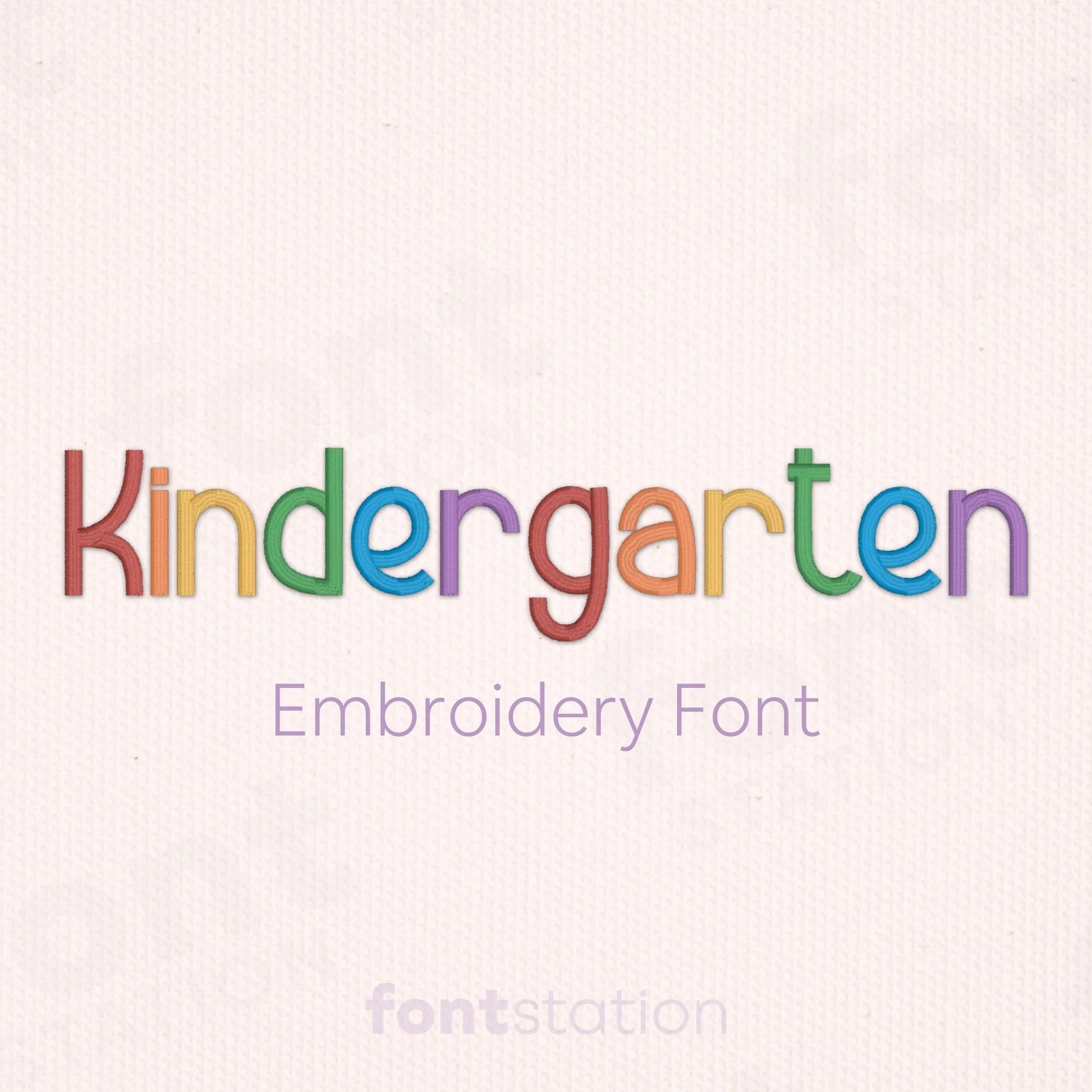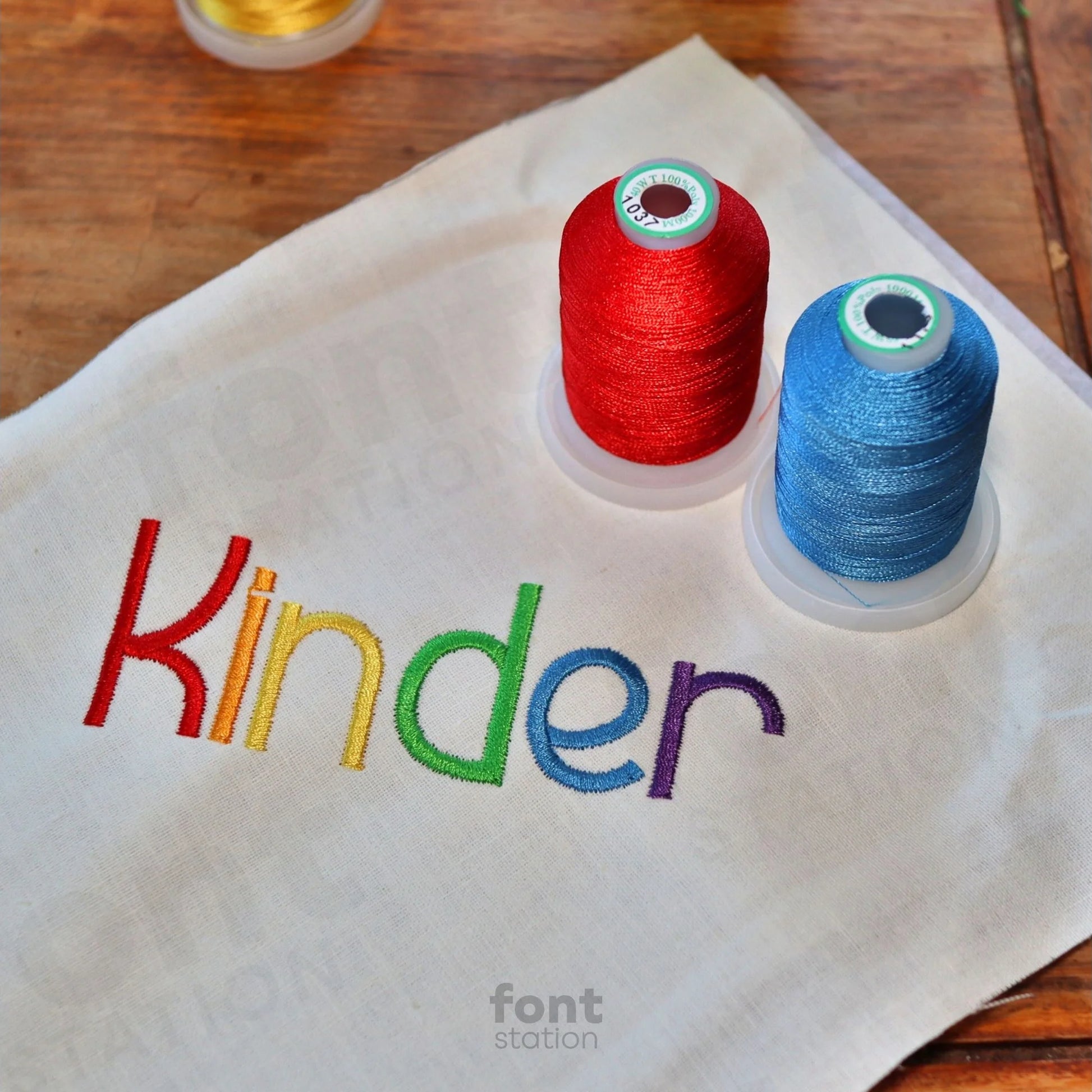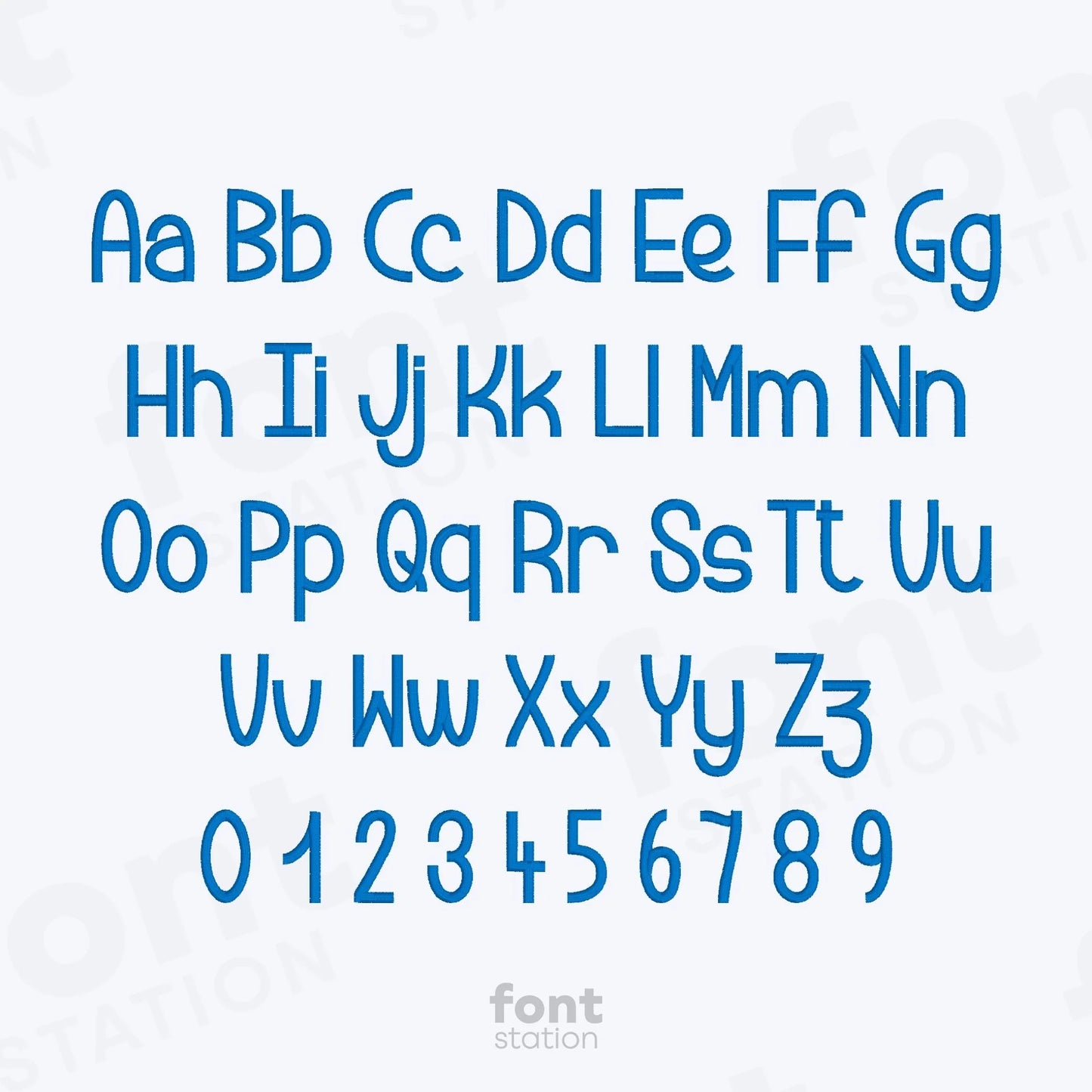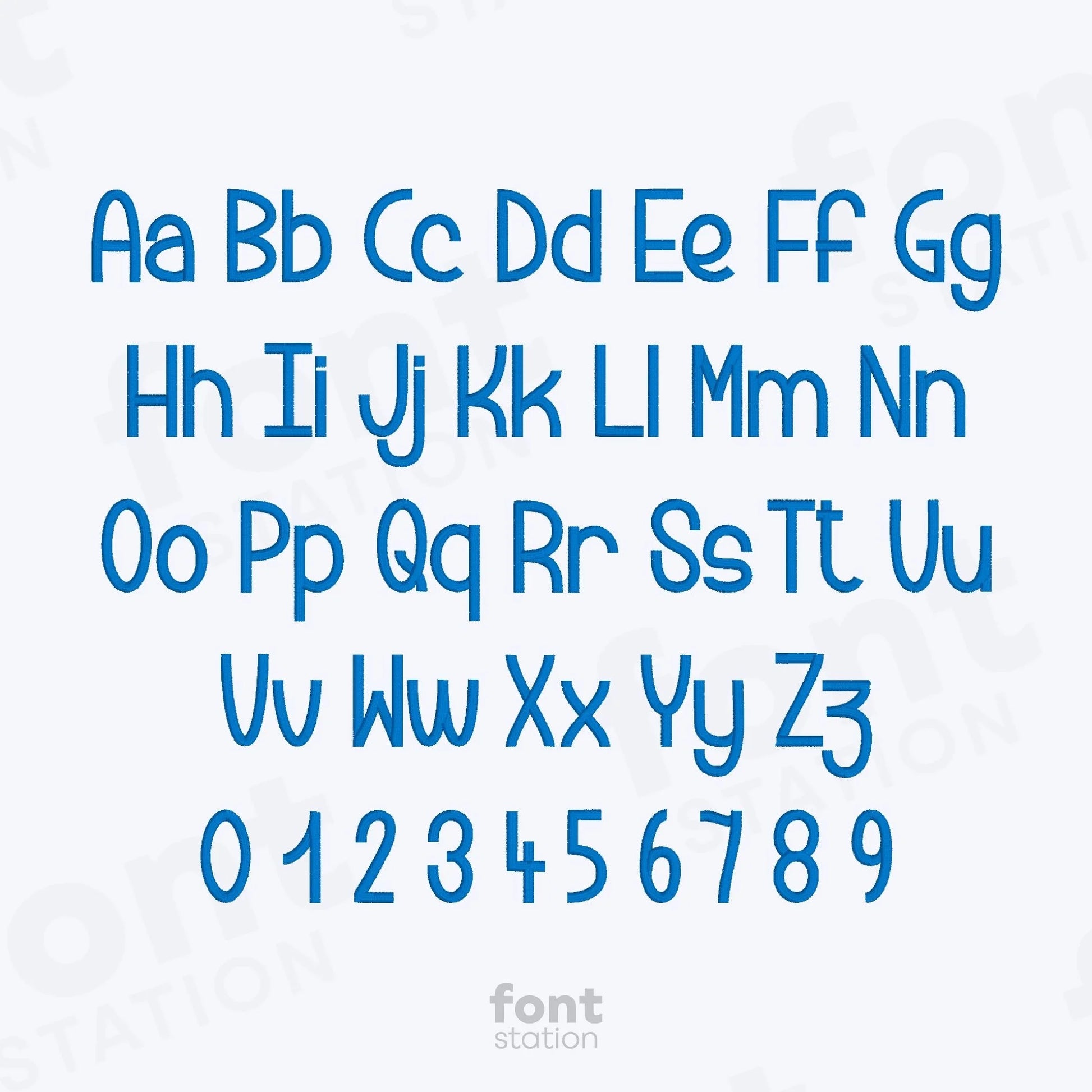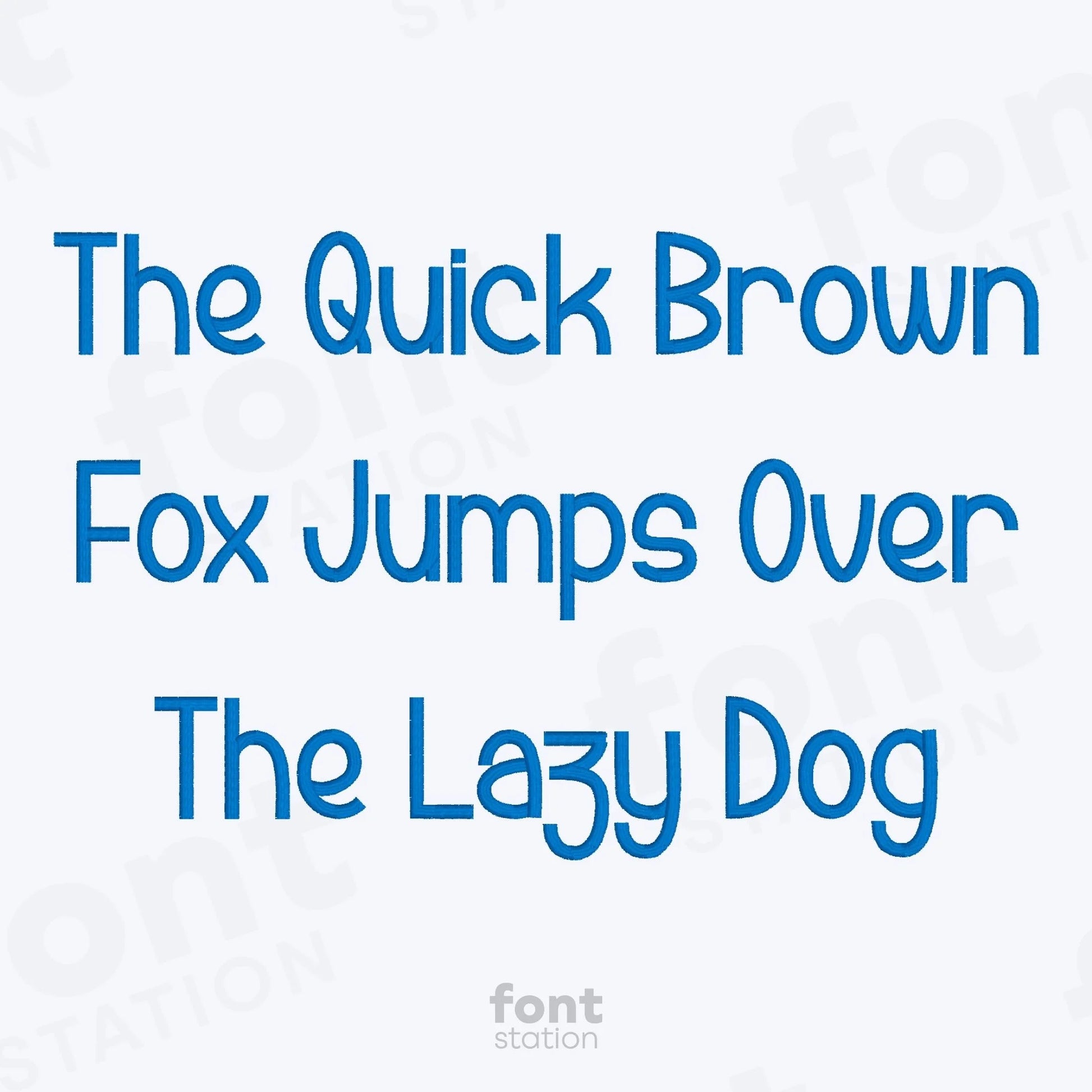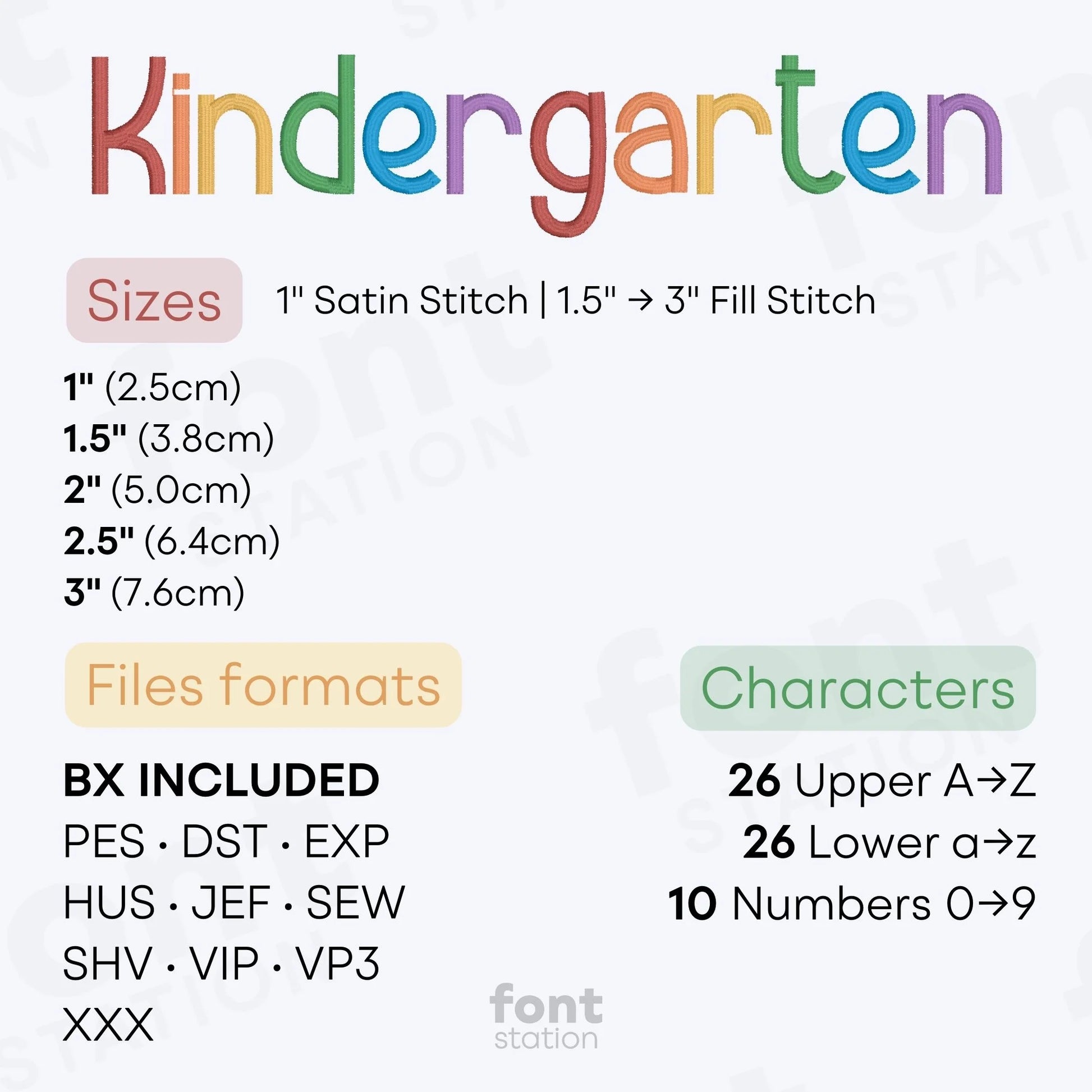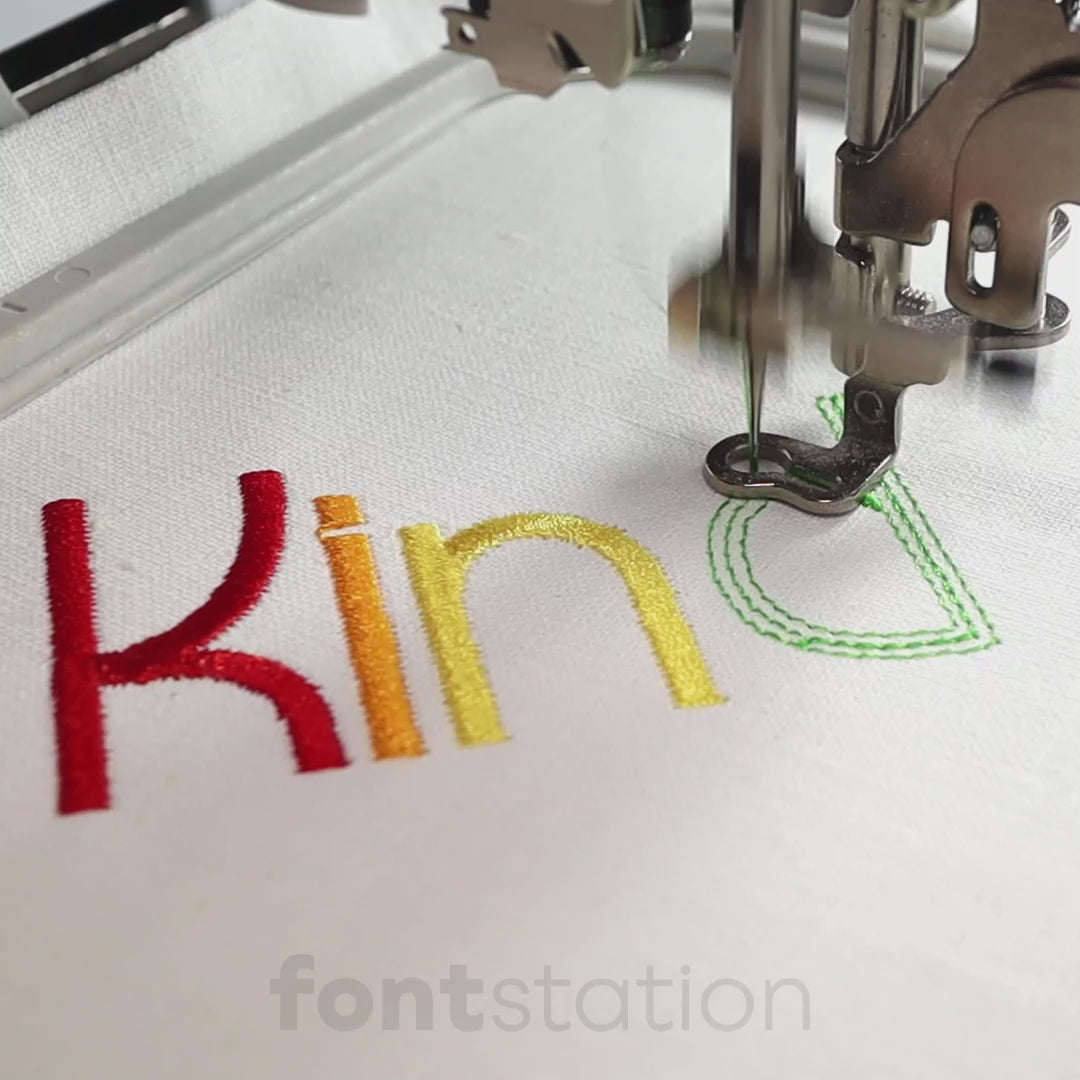
Kindergarten Embroidery Font
Introducing our Kindergarten embroidery font, a playful alphabet perfect for kids' names and school-themed designs. These fun letters stitch smoothly on any embroidery machine, making it a great choice for your next creative project.
About the Kindergarten Embroidery Font
Our Kindergarten embroidery font adds a playful, school-inspired touch to your embroidery projects.
The Kindergarten embroidery font features a fun, kid-friendly alphabet designed for names, labels, and classroom-inspired creations. Perfect for school bags, uniforms, and personalized gifts, these embroidery letters are professionally digitized to stitch smoothly on any embroidery machine. Available in BX, PES, DST, JEF, EXP, VP3, and HUS formats, this font is a must-have for back-to-school designs and handmade projects with heart.